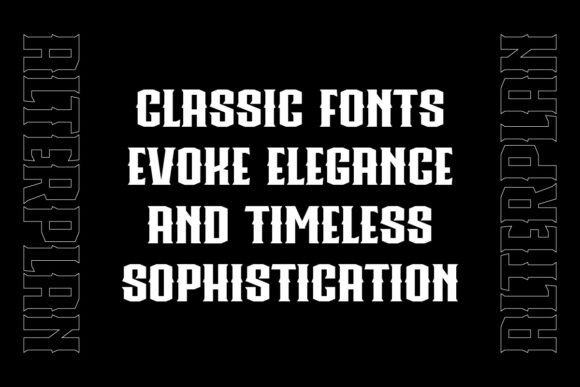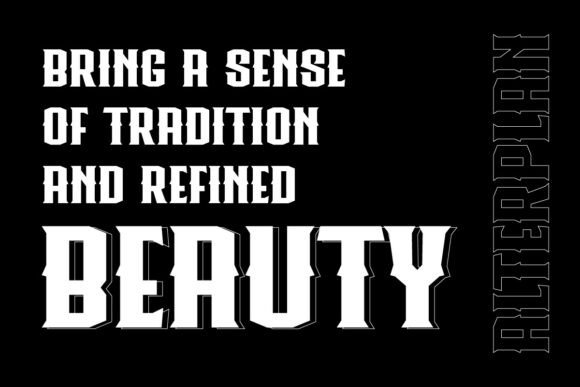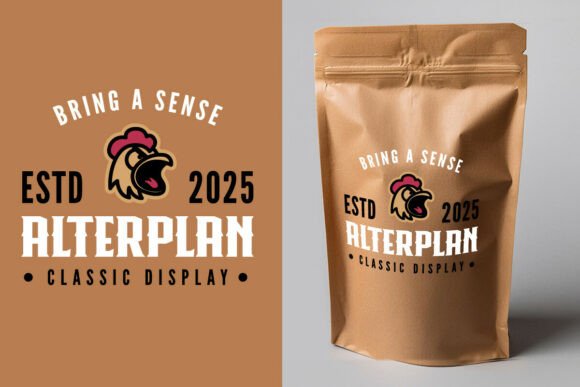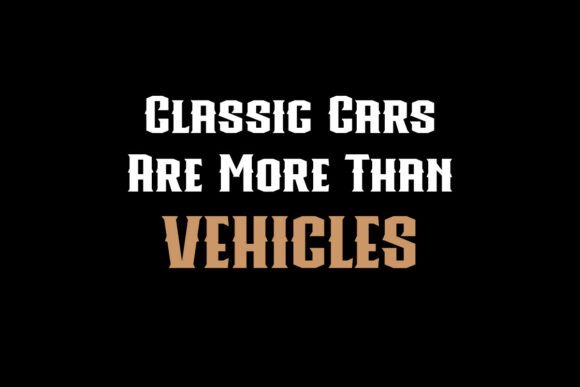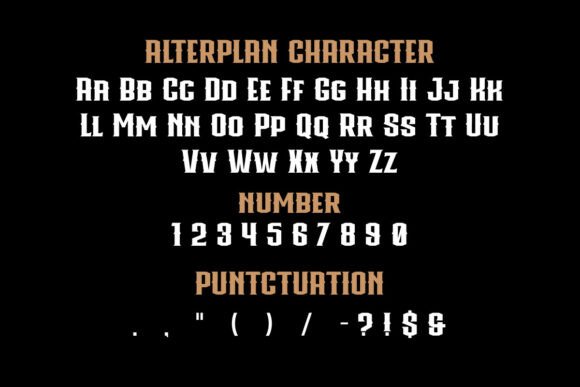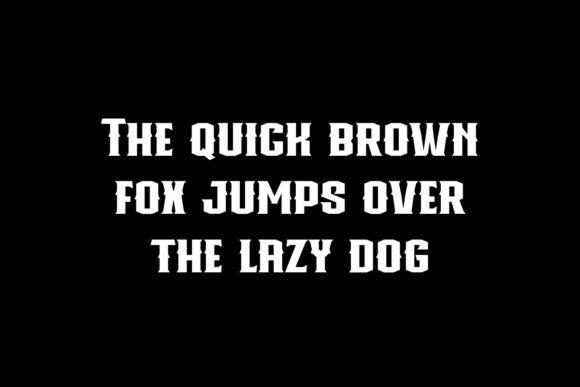
Introducing Alterplan Font: A Timeless Classic Display Font
Are you looking for a font that exudes confidence and vintage strength, yet has a modern edge? Look no further than Alterplan, a bold and classic display font designed by IHD Studio. This exceptional font is perfect for designers and crafters who want to create stunning visual projects that demand attention.
What Makes Alterplan Stand Out?
Alterplan boasts sharp angles and blocky character shapes, giving it a unique and commanding presence. Its structured form makes it ideal for branding with authority and style, particularly for industries such as barbershops, mechanics, apparel, and sports. Whether you’re designing logos, posters, banners, or product packaging, Alterplan delivers a timeless look that’s sure to leave a lasting impression.
Key Features of Alterplan Font
- Bold and Confident: Alterplan is a bold and confident font that’s perfect for making a statement.
- Vintage Strength with a Modern Edge: This font blends vintage strength with a modern edge, making it versatile and suitable for a wide range of projects.
- Sharp Angles and Blocky Character Shapes: Alterplan’s sharp angles and blocky character shapes give it a unique and edgy look.
- Timeless Look: This font delivers a timeless look that’s perfect for creating classic and sophisticated designs.
- Commanding Presence: Alterplan has a commanding presence that’s sure to grab attention and leave a lasting impression.
Perfect for Various Industries and Projects
Alterplan is an excellent choice for various industries and projects, including:
- Barbershops: Create a bold and masculine brand identity with Alterplan.
- Mechanics: Use Alterplan to convey strength and reliability in your branding and marketing materials.
- Apparel: Add a touch of edginess to your apparel designs with Alterplan’s bold and confident font.
- Sports: Alterplan is perfect for sports-related projects, such as team logos, jerseys, and promotional materials.
- Logos: Create a lasting impression with Alterplan’s bold and confident font.
- Posters: Use Alterplan to create eye-catching posters that grab attention.
- Banners: Make a statement with Alterplan’s commanding presence on your banners.
- Product Packaging: Elevate your product packaging with Alterplan’s timeless and sophisticated look.
Why Choose Alterplan Font?
Alterplan font is crafted by IHD Studio, ensuring quality that lasts a lifetime. Here are some reasons why you should choose Alterplan:
- High-Quality Design: Alterplan is designed with precision and attention to detail, ensuring a high-quality font that looks great in any project.
- Versatility: This font is versatile and suitable for a wide range of projects and industries.
- Timeless Look: Alterplan delivers a timeless look that’s perfect for creating classic and sophisticated designs.
| Font Name | Alterplan Font |
| Author | IHD.STD |
In conclusion, Alterplan is an exceptional classic display font that’s perfect for designers and crafters who want to create stunning visual projects. Its bold and confident design, vintage strength, and modern edge make it an excellent choice for various industries and projects. With its high-quality design, versatility, and ease of use, Alterplan is a valuable addition to any designer’s font collection.